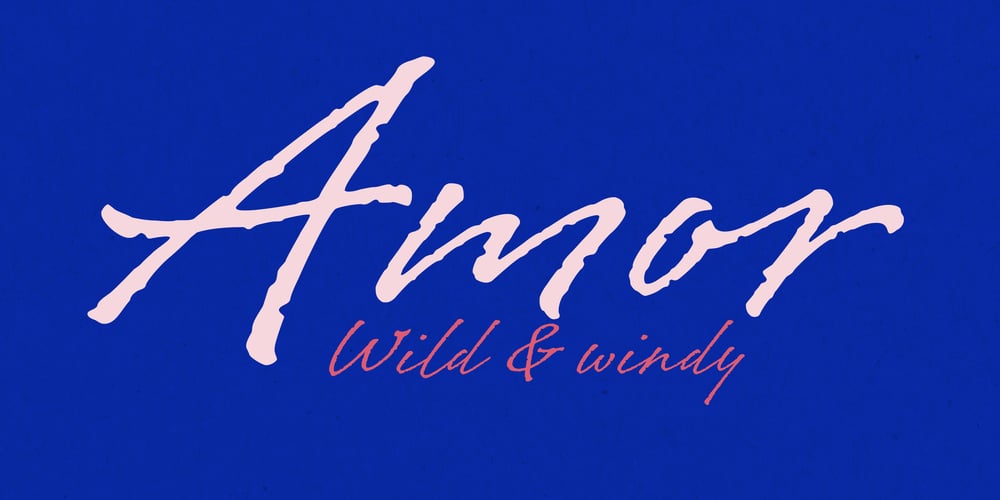
Viento Font Family was designed by Alejandro Paul, Angel Koziupa and published by Sudtipos. Viento contains 1 styles and family package options. Viento is the evolution, devolution and revolution of the classic Brisa font. Drawn in a rough way for quick times in a fast culture, this font is a top-of-the-range option for casual text, invites, recipes, menus and of course, packaging your favorite express lane foods. Viento comes with programmed features for ligatures and kerning, and extended support for a large number of Latin lingos. Designed by Koziupa and digitized by Ale Paul.